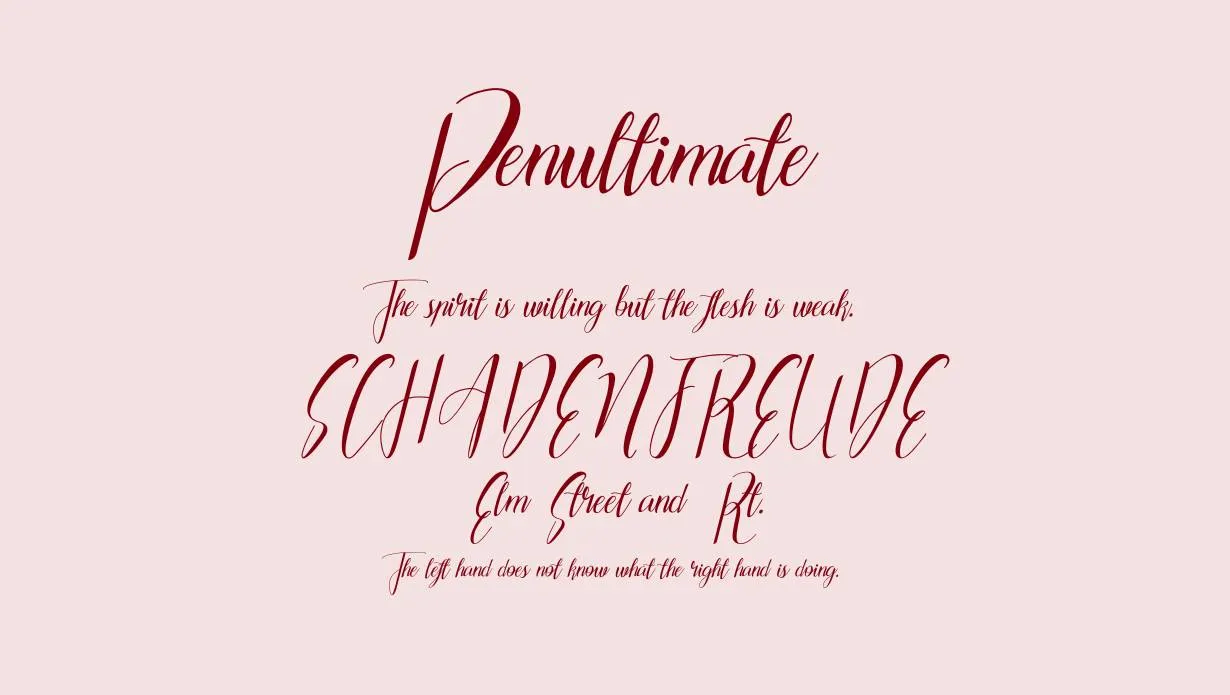
Morning Wishes exudes positivity and cheerfulness with its light and uplifting design. Often chosen for projects that aim to spread joy and optimism, this font adds a bright and sunny touch to any text it graces.
Whether used in greeting cards, social media posts, or inspirational quotes, Morning Wishes brings a sense of warmth and positivity to the visual message.
View of Morning Wishes Font Family
| Style | Handwritten |
Morning Wishes Font Family List
- Morning Wishes Regular